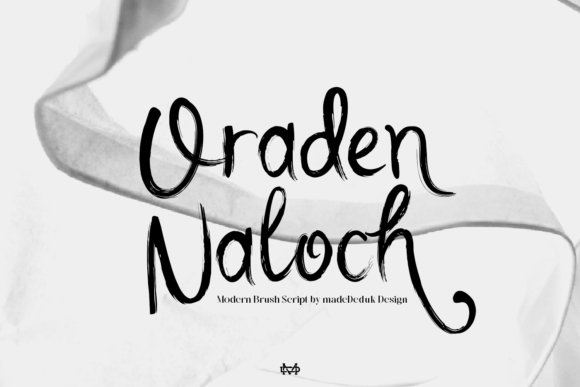
In an era where individuality and self-expression reign supreme, Oraden Naloch stands tall as a font that captures the essence of your unique style. Presenting the Best Font For Signature, meticulously crafted to add a touch of elegance, sophistication, and authenticity to your creative endeavors. With its mesmerizing strokes, Oraden Naloch transforms words into captivating pieces of art, leaving an indelible mark on the hearts of your audience.
Step into a realm of boundless creativity, where your imagination dances freely amidst a symphony of letters, each stroke imbued with emotion and depth. Unleash the full potential of your designs with Oraden Naloch, an extraordinary script font that mirrors the beauty and grace of handwritten masterpieces. Elevate your projects to new heights, effortlessly captivating your audience with its enchanting allure.
Adorn your posters with Oraden Naloch's captivating curves, effortlessly capturing the attention of passersby. Create book covers that transcend the ordinary, alluring readers with the promise of an extraordinary journey within. Design merchandise that speaks to the soul, transforming simple objects into treasured keepsakes. Launch fashion campaigns that ignite a spark of inspiration, leaving an unforgettable impression on the hearts of fashionistas everywhere.
Craft newsletters that resonate with your audience, inviting them into a world of captivating stories and enthralling experiences. Build a brand identity that exudes sophistication and elegance, attracting clients who appreciate the finer things in life. Create advertisements that captivate and persuade, leaving your audience eager to discover more about your offerings. Elevate the impact of magazines with headlines that leap off the page, drawing readers into a captivating vortex of information and entertainment.
Fashion greeting cards that touch the heartstrings, expressing sentiments with an artistry that transcends words. Design album covers that perfectly encapsulate the essence of your music, inviting listeners on an auditory adventure. Create quote designs that inspire and uplift, spreading positivity and wisdom throughout the world. The possibilities are boundless, limited only by the depths of your imagination and the magic that flows through your fingertips.
With Oraden Naloch, you possess a font that transcends the mundane, transforming the ordinary into the extraordinary. Its versatile nature allows it to effortlessly adapt to any project, seamlessly harmonizing with your creative vision. Experience the joy of creating effortlessly, knowing that every word, every phrase, and every design element will be imbued with an enchanting allure that captivates and delights.
Welcome to the world of Oraden Naloch, a font that ignites passion, fuels creativity, and leaves an everlasting impression on all who behold it. Embrace the beauty of handwritten artistry and elevate your designs to breathtaking new heights. Let Oraden Naloch guide you on a journey of self-expression, originality, and artistic triumph.